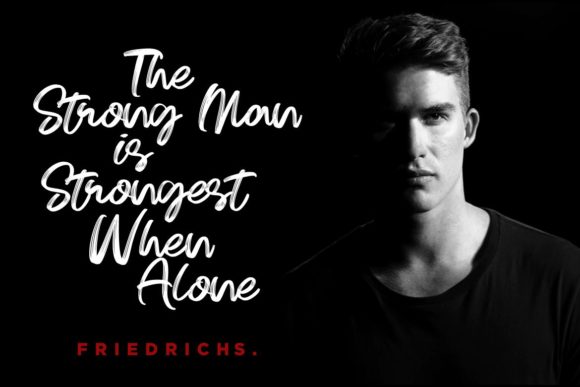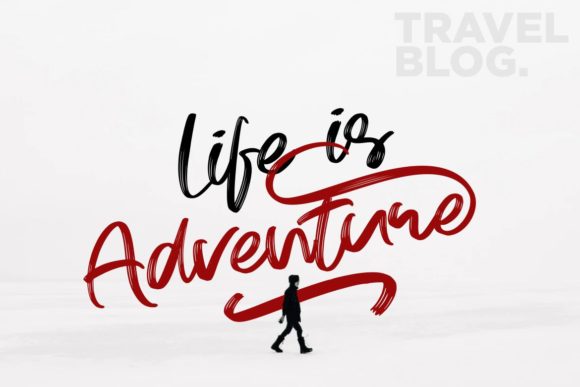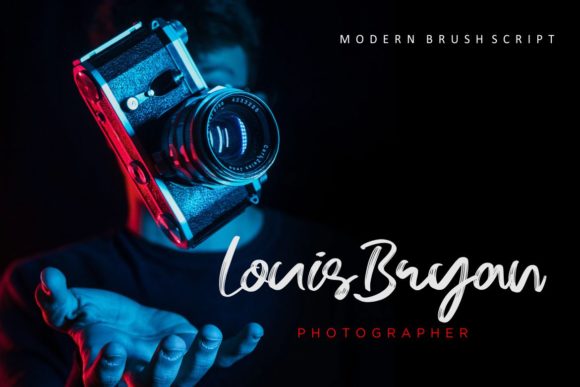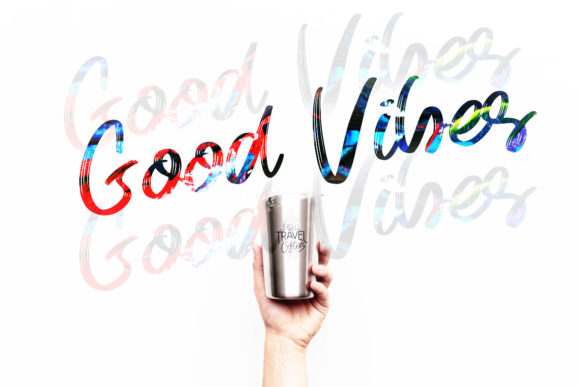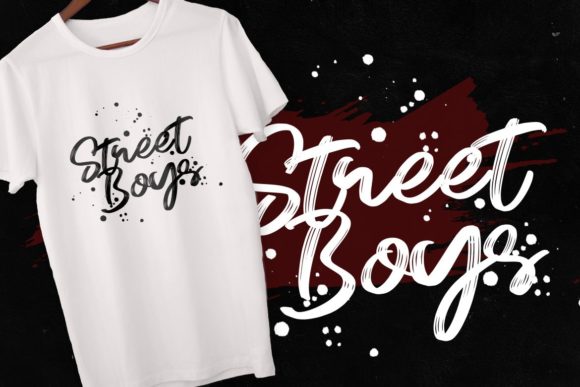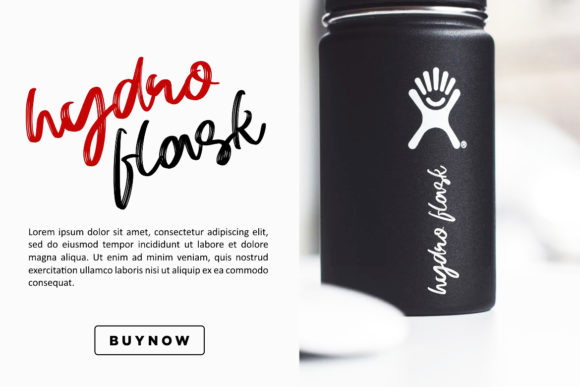
Introducing Blaster Font: The Ultimate Game-Changer for Designers and Crafters
Are you tired of using the same old fonts in your design projects? Do you want to add a touch of personality and uniqueness to your creations? Look no further than Blaster Font, an expressive and incredibly original handwritten font that’s sure to turn any design project into a true standout.
What is Blaster Font?
Blaster Font is a one-of-a-kind handwritten font that’s perfect for designers and crafters who want to add a dash of excitement to their work. With its unique and expressive lettering style, Blaster Font is sure to grab attention and leave a lasting impression. Whether you’re working on a branding project, creating social media graphics, or designing a website, Blaster Font is the perfect choice.
Key Features of Blaster Font
- Expressive and Original: Blaster Font is an incredibly original handwritten font that’s sure to make your design projects stand out from the crowd.
- Handwritten Style: With its unique handwritten style, Blaster Font adds a touch of personality and warmth to any design project.
- Versatile: Blaster Font is perfect for a wide range of design projects, from branding and advertising to social media graphics and website design.
Benefits of Using Blaster Font
So why choose Blaster Font for your design projects? Here are just a few benefits of using this amazing font:
- Adds Personality to Your Designs: With Blaster Font, you can add a touch of personality and uniqueness to your design projects, setting them apart from the competition.
- Increases Engagement: The expressive and original style of Blaster Font is sure to grab attention and increase engagement with your audience.
- Perfect for Branding: Blaster Font is perfect for branding projects, helping you to create a unique and memorable brand identity.
- Great for Social Media: With Blaster Font, you can create eye-catching social media graphics that are sure to stand out in crowded feeds.
In conclusion, Blaster Font is an amazing handwritten font that’s perfect for designers and crafters who want to add a touch of personality and uniqueness to their design projects. With its expressive and original style, Blaster Font is sure to turn any design project into a true standout. So why wait? Download Blaster Font today and start creating amazing designs that will leave a lasting impression!